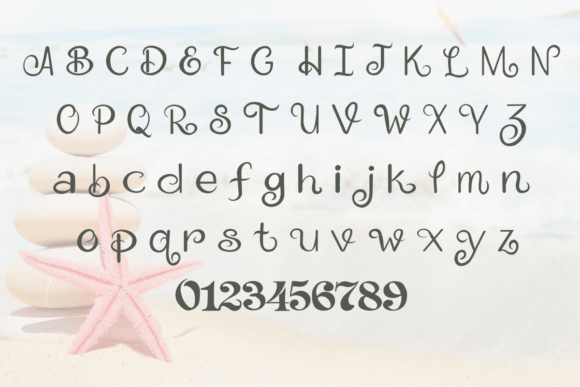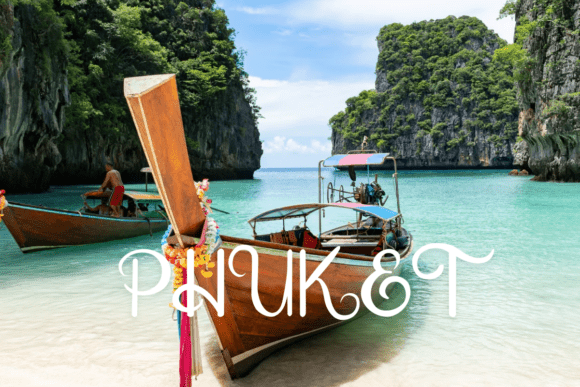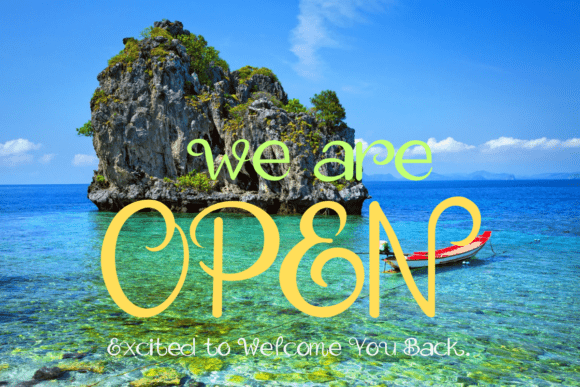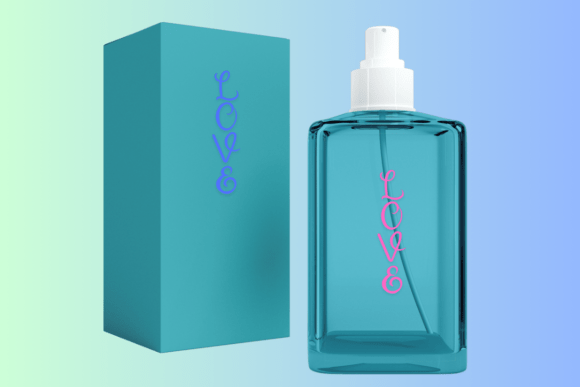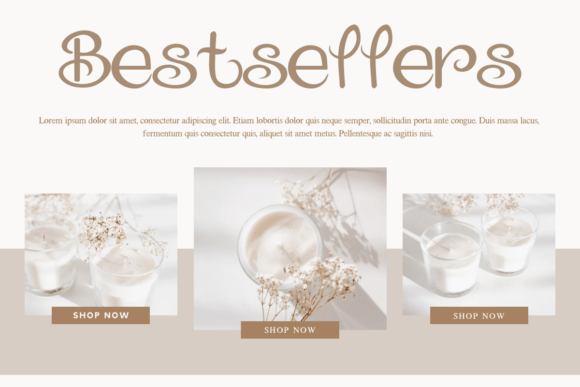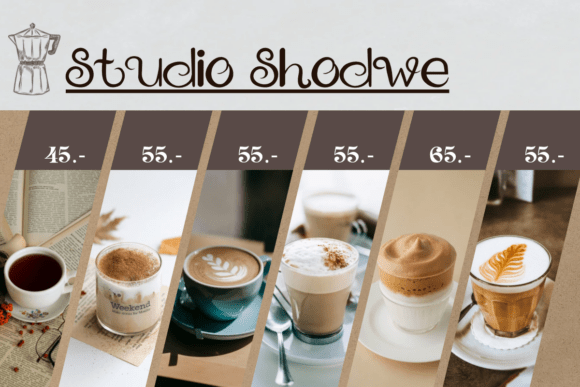
Introduction to Happy Summer Holidays Font
Happy Summer Holidays a handwritten font.
You can use it for taking notes, writing a diary, or making greeting cards However, you can still use it for other designs, such as banners, content, mugs, cards, shirts, stationeryis, social media posts, and more.
Key Features of Happy Summer Holidays Font
Why Choose Happy Summer Holidays Font?
Happy Summer Holidays Font offers exceptional quality and versatility, making it a valuable addition to your design toolkit. Whether you’re creating for personal projects or commercial use, Happy Summer Holidays Font delivers professional results.